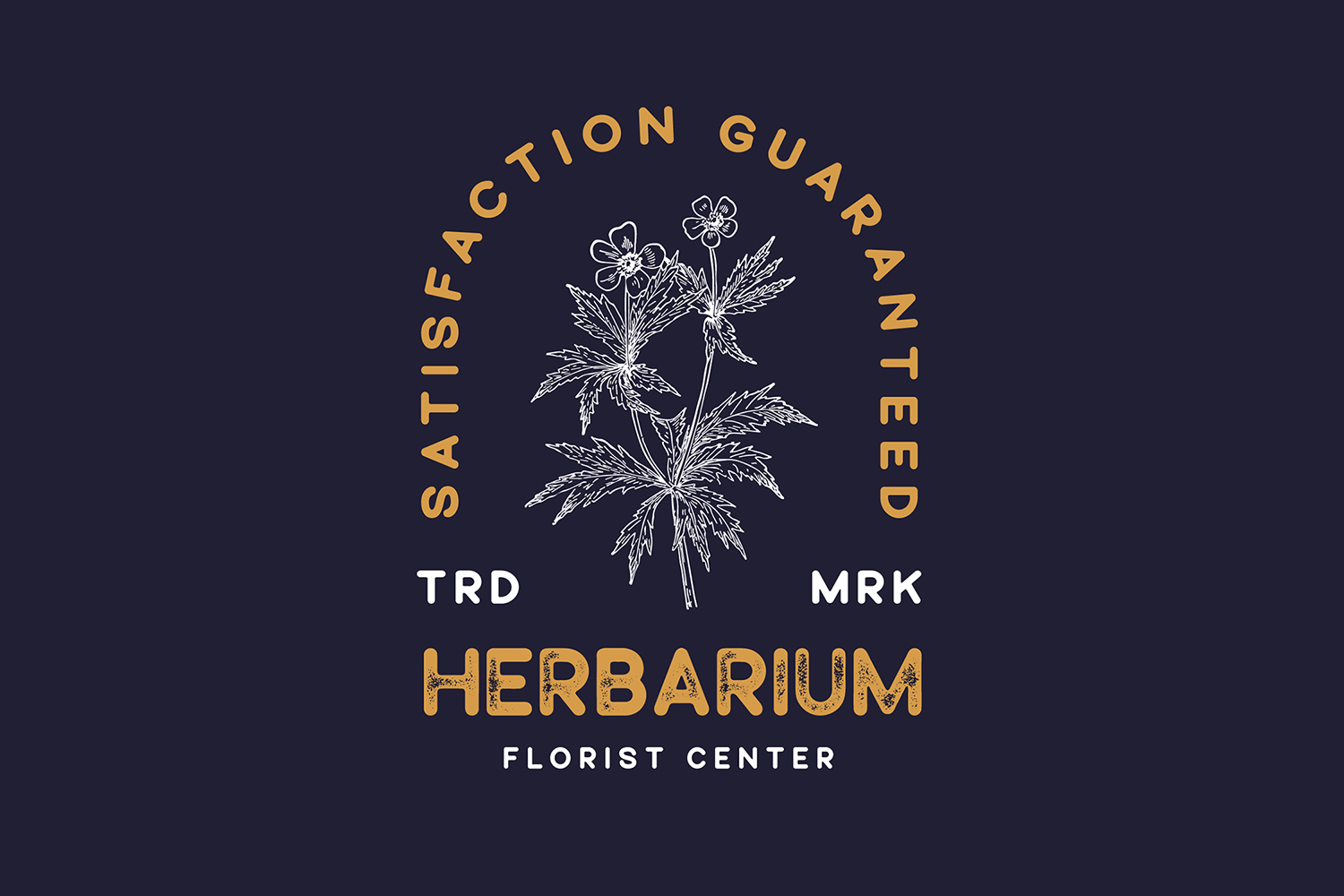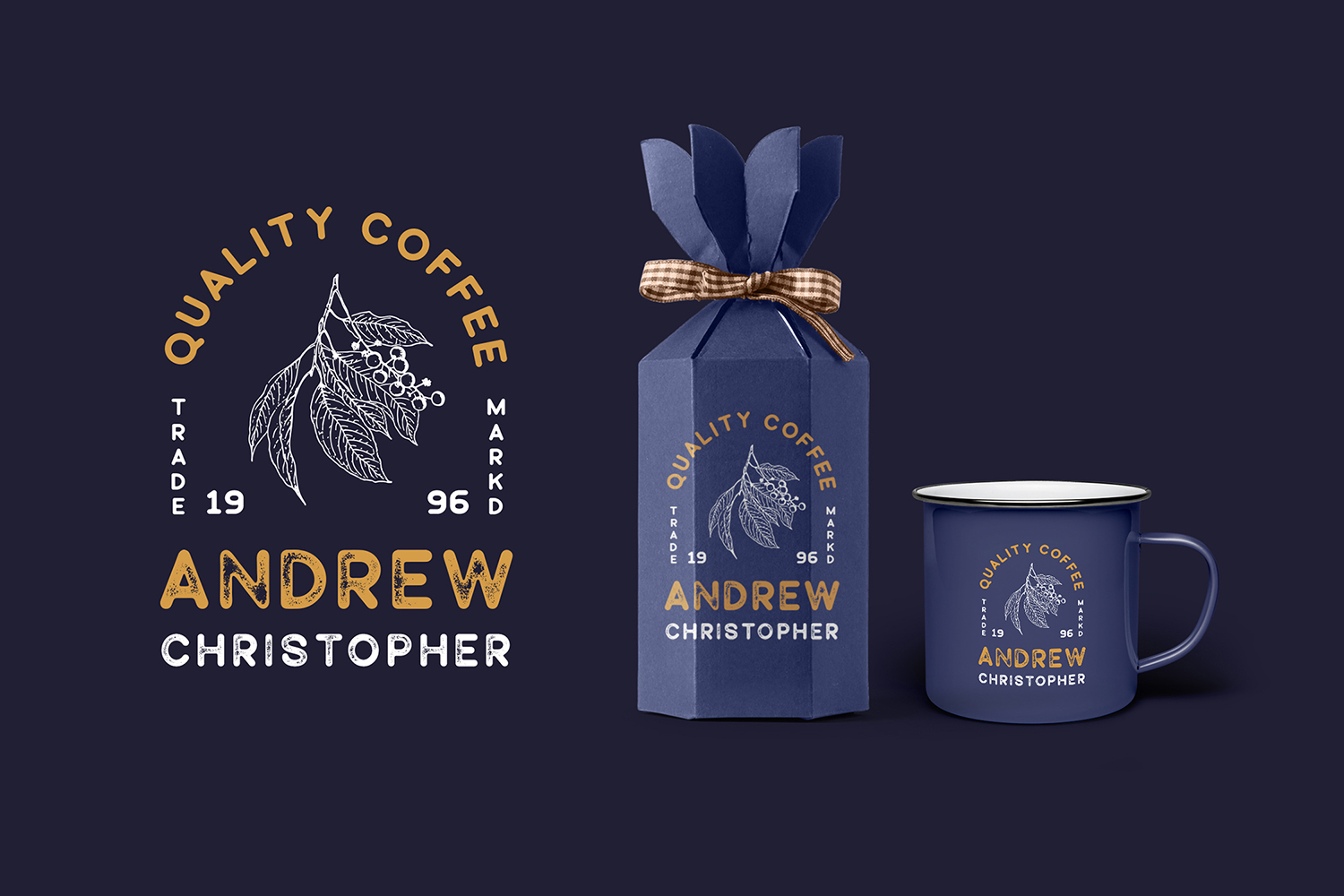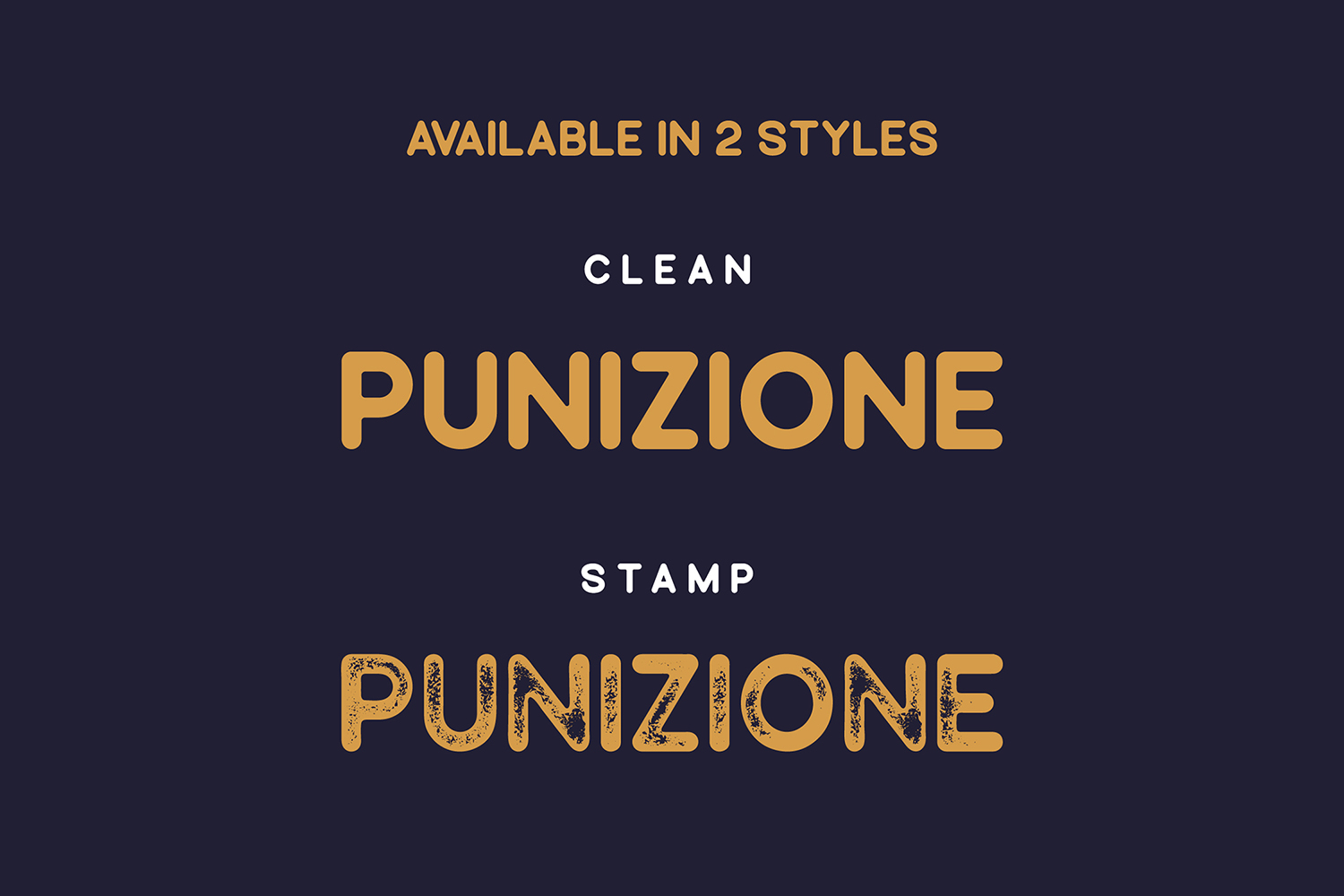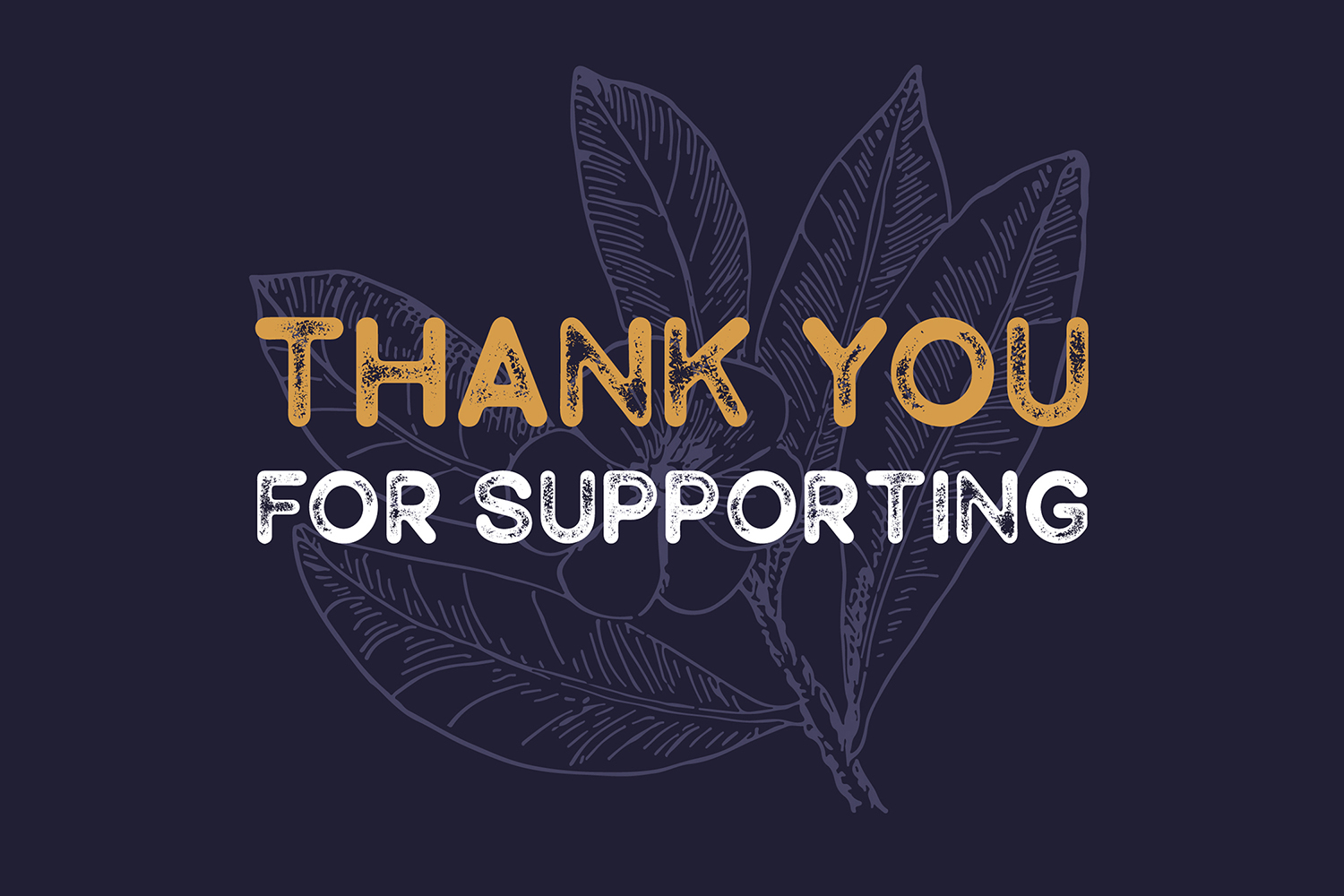
Punizione Free Font
Punizione Free Font is a fresh bold vintage font available in two styles; clean & stamp. Get inspired by its contemporary coolness. This free typeface was designed by a talented Akhmad Reza Fauzi. If you like it don’t forget to check out the full version.